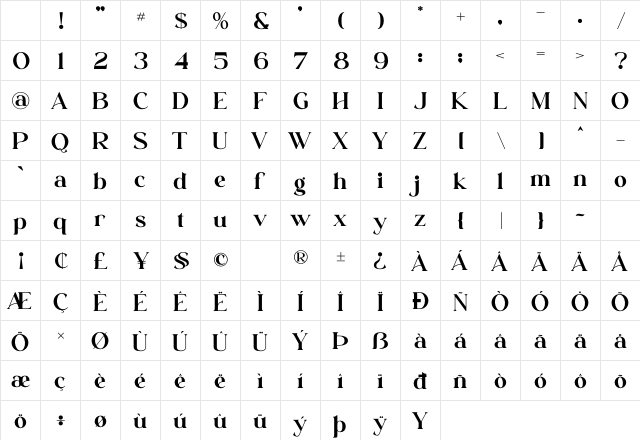
Athene Voyage Regular Free Font
Athene Voyage Regular
Designer: Biham Santoso
Design Context for Athene Voyage
Athene Voyage is a composed and adaptable typeface that performs quietly and consistently across a wide range of design contexts.